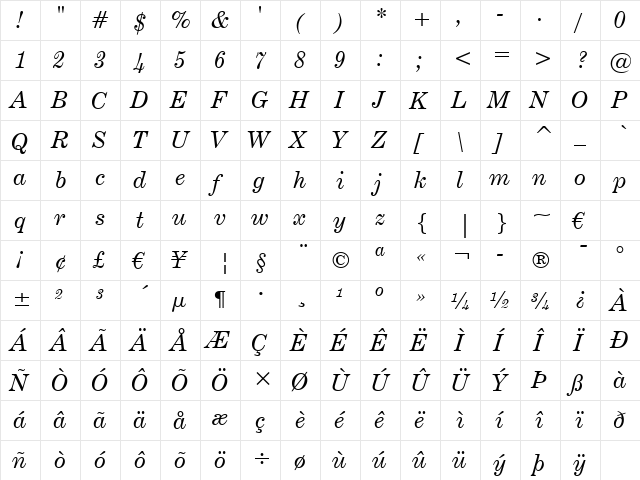
CenturyExpd BT Italic
Design Context for CenturyExpd BT Typeface
CenturyExpd BT offers clean, dependable letterforms without strong stylistic allegiance, making it a practical choice for designers who need flexibility. The slanted form adds forward momentum and visual energy.
Pro Tip: Try CenturyExpd BT for annotation and caption copy alongside an upright companion — the contrast in angle creates a dynamic but ordered typographic system.